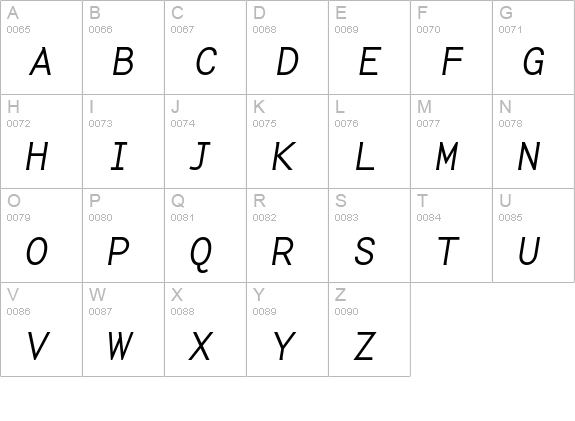
BaseMonoWideThinItalic Italic Font Details
BaseMonoWideThinItalic Italic is a distinctive, italic variant in the BaseMonoWideThinItalic typeface family \xE2\x80\x94 well suited to design and typography projects.
Introducing BaseMonoWideThinItalic Italic font - a sleek and modern typeface designed for those seeking a minimalist yet elegant touch to their projects. With its thin and elongated appearance, this font exudes a sense of sophistication and professionalism. The italic styling adds a touch of flair and creativity, making it perfect for use in various design applications. What's even better is that BaseMonoWideThinItalic Italic font is completely free for personal and commercial use. You can easily download this font at FontsMarket.com, where it is readily available for you to enhance your creative projects with its unique aesthetic. Whether you're designing a website, creating branding materials, or working on print designs, this font is sure to make a statement and elevate your work to the next level. Don't miss out on the opportunity to add BaseMonoWideThinItalic Italic font to your font library today!